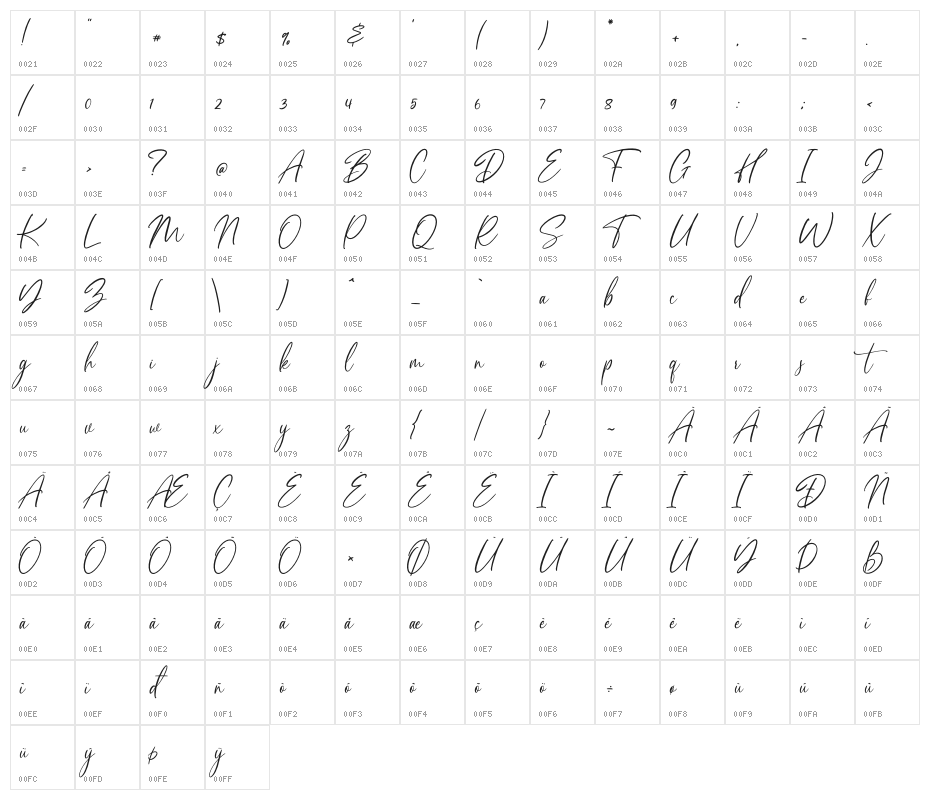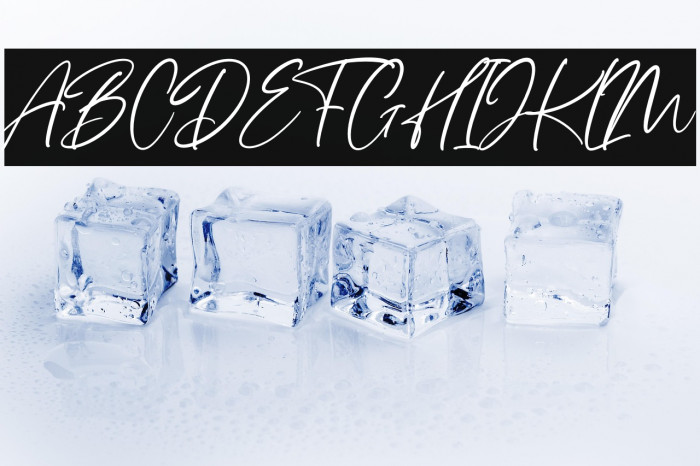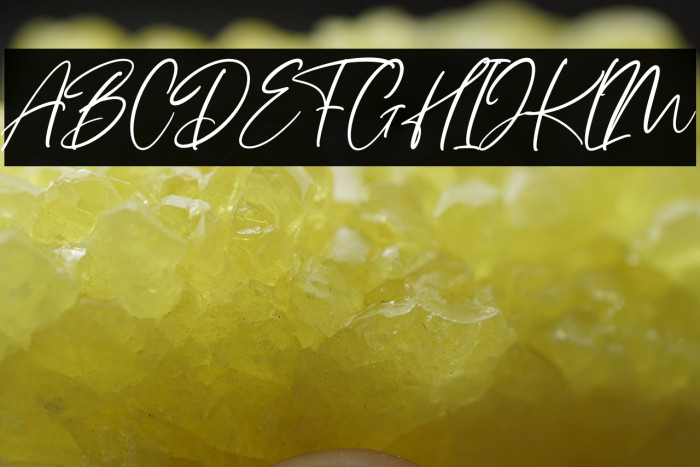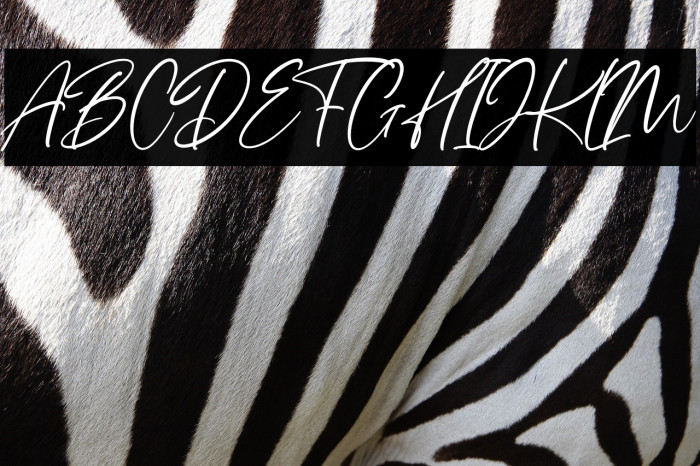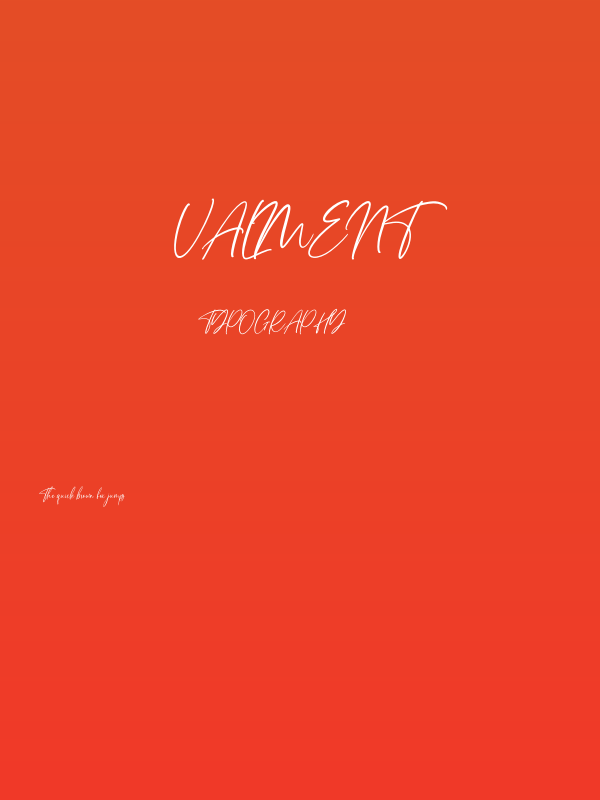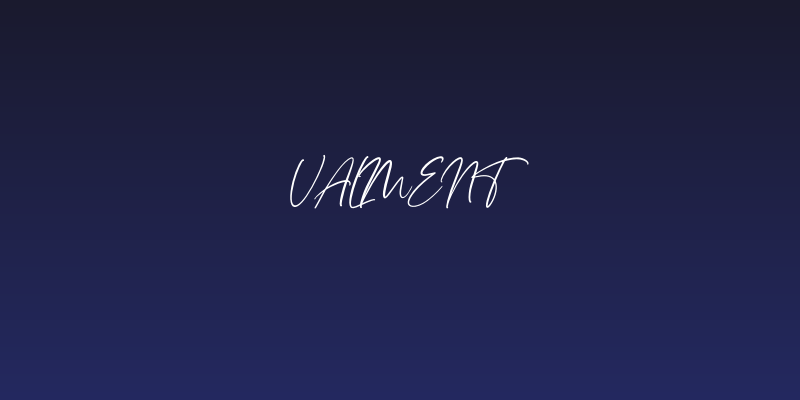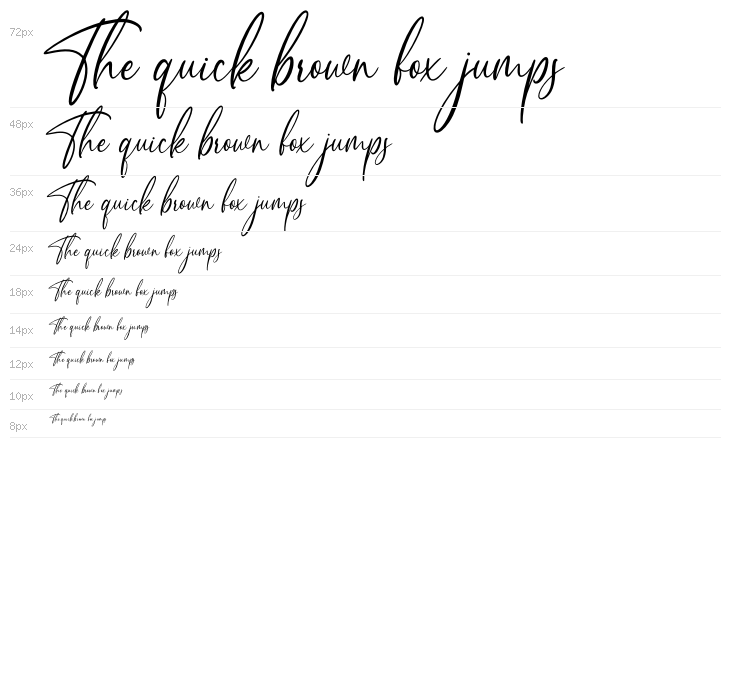
Valment Font
Valment Description
This font exudes a sense of elegance and fluidity, characterized by its script style that mimics the natural flow of handwriting. The letters are connected in a seamless manner, creating a cohesive and harmonious look. The uppercase letters are bold and slightly elongated, while the lowercase letters maintain a consistent flow with delicate loops and curves. The numerals and special characters are crafted with the same attention to detail, ensuring uniformity across all elements. This font is ideal for projects that require a personal touch, such as invitations, greeting cards, or branding materials. Its sophisticated appearance makes it suitable for both formal and casual settings, offering versatility in its application.
| Overall Style | Elegant, Handwritten |
| Use Case | Invitations, Greeting cards, Branding |
| Proposed Projects | Ideal for wedding invitations, greeting cards, personal branding, and elegant logos. |